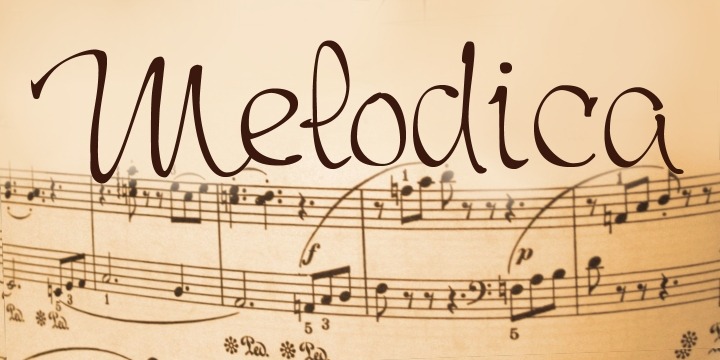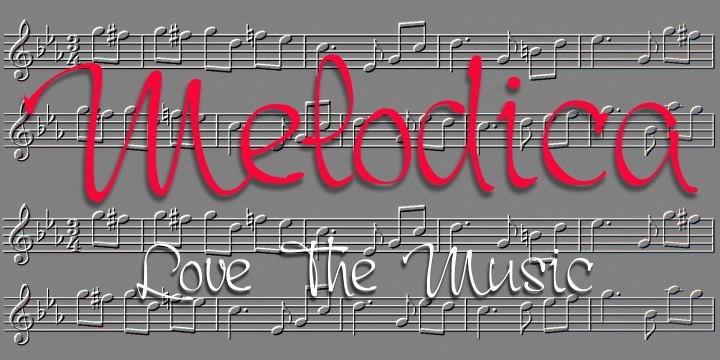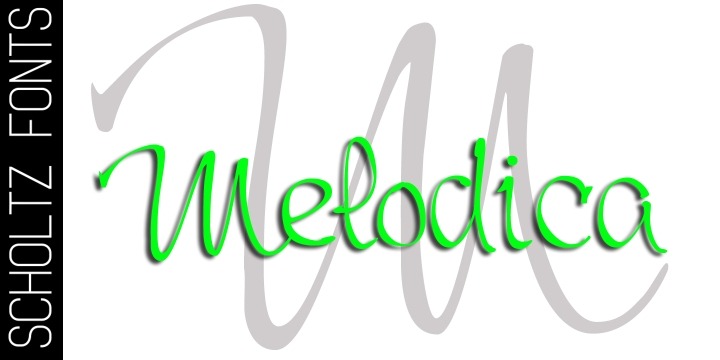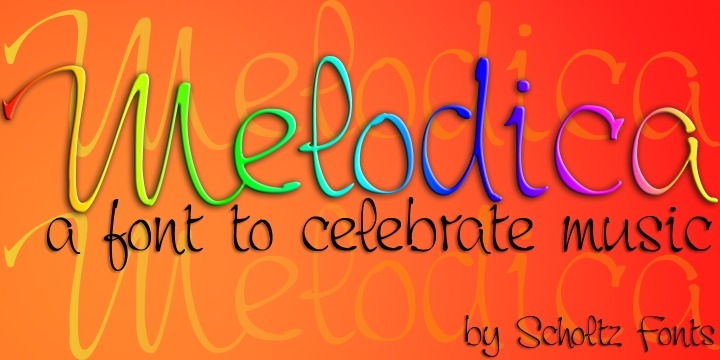
Melodica
Font Family by Scholtz Fonts
Melodica was so named because the characters dance easily across the page as music wafts across a room. The font was designed to meet the need of designers that need clarity, sensuousness, a suggestion of the oddball, and a modicum of humor.
With its boldly curvy caps, and large x-height lower case characters, Melodica suggests a boldness of purpose while enjoying a well modulated delicacy of line. Use Melodica for any purpose that wants a happy, vibrant, slightly quirky yet ?not too far from the norm? solution.